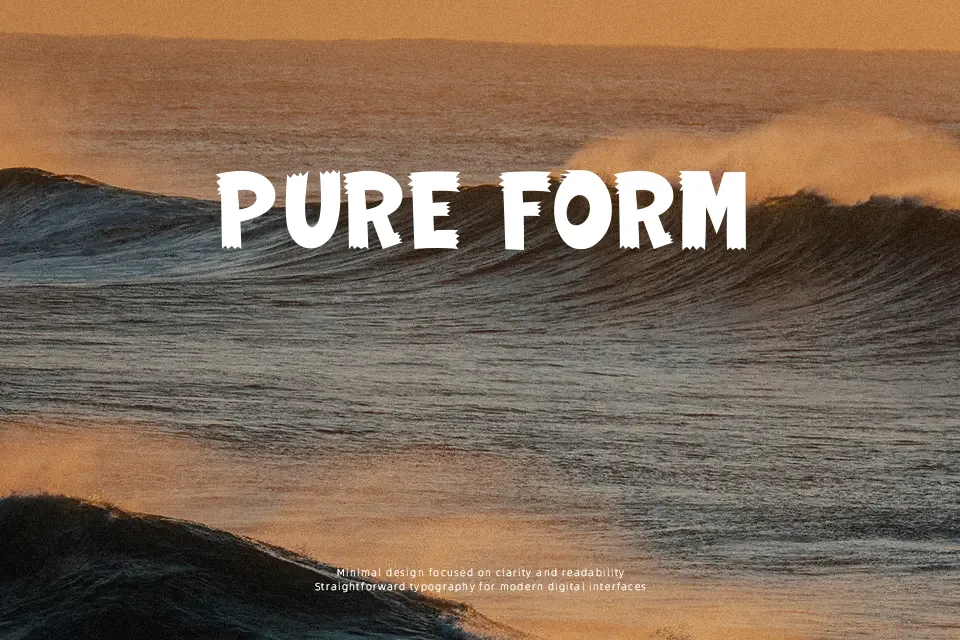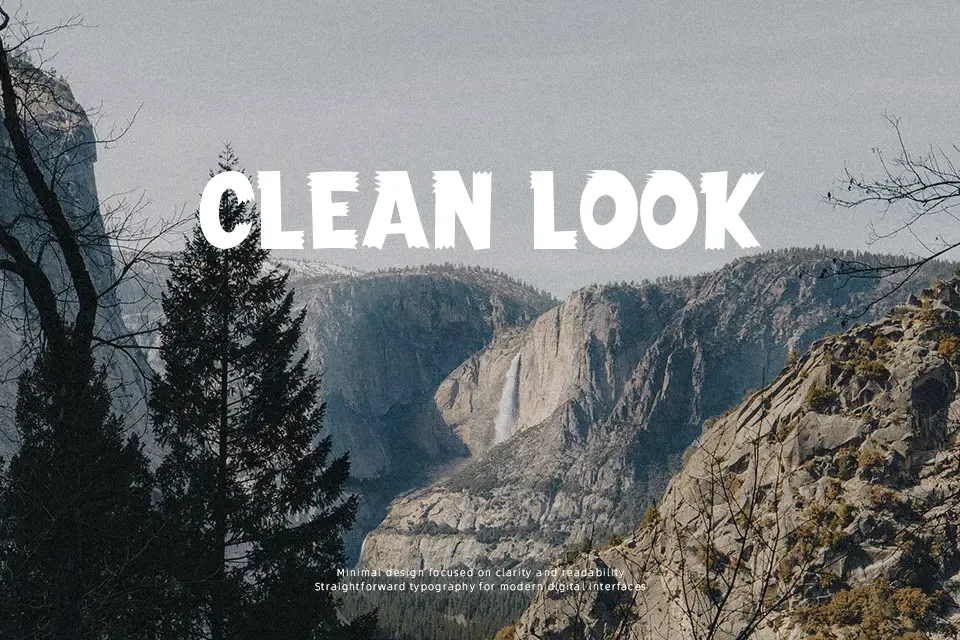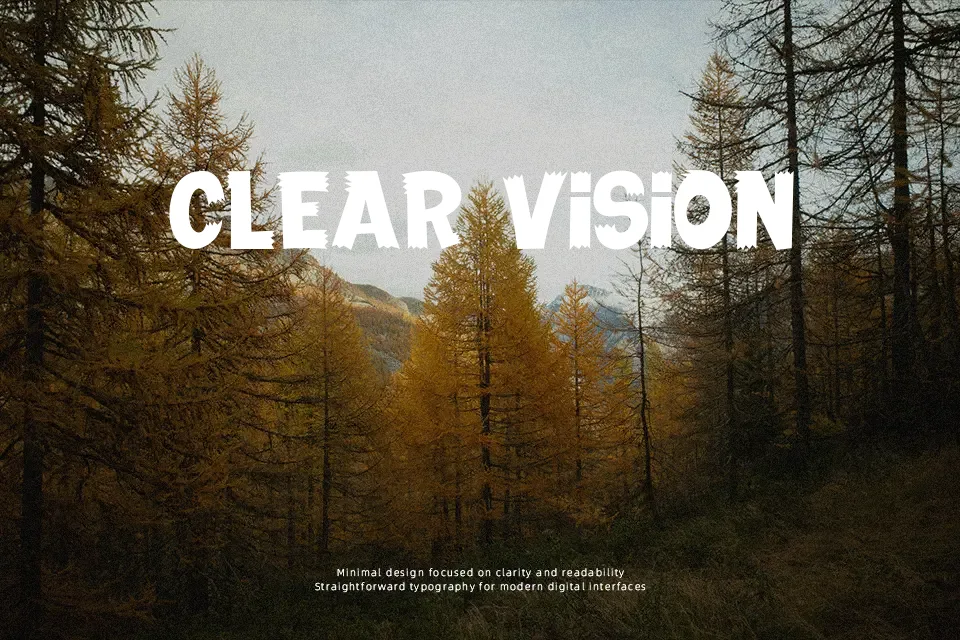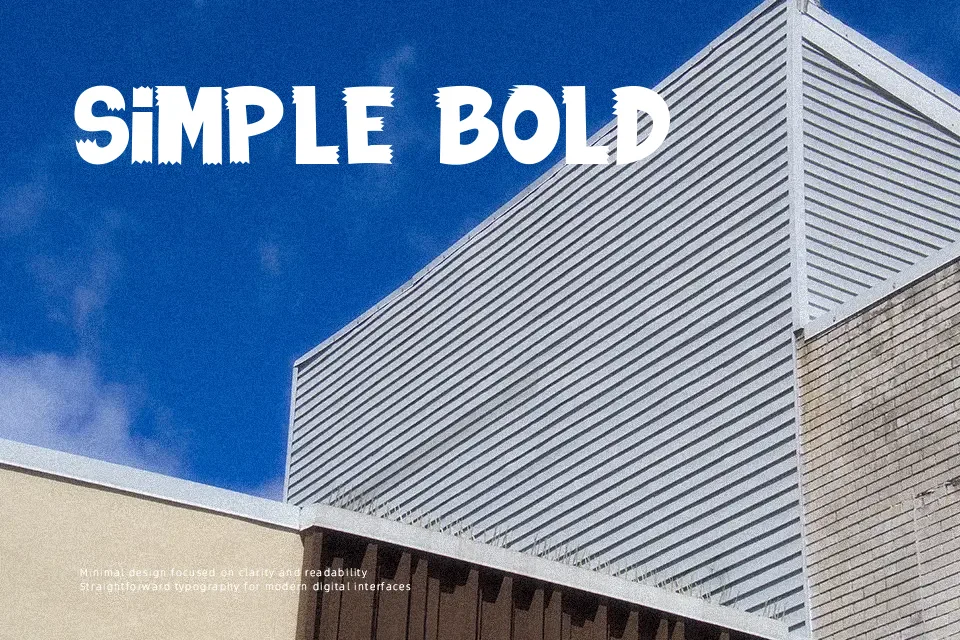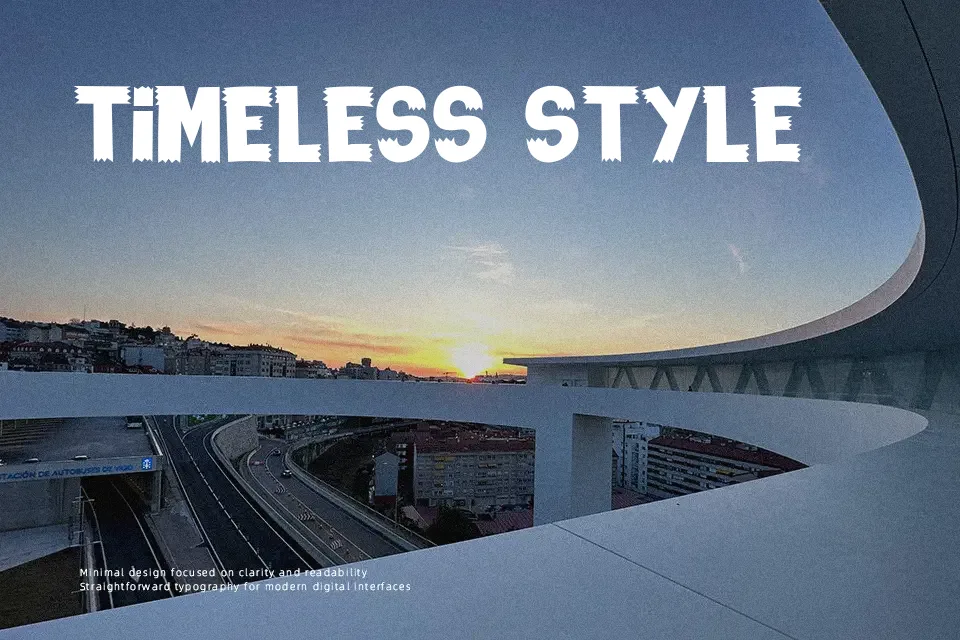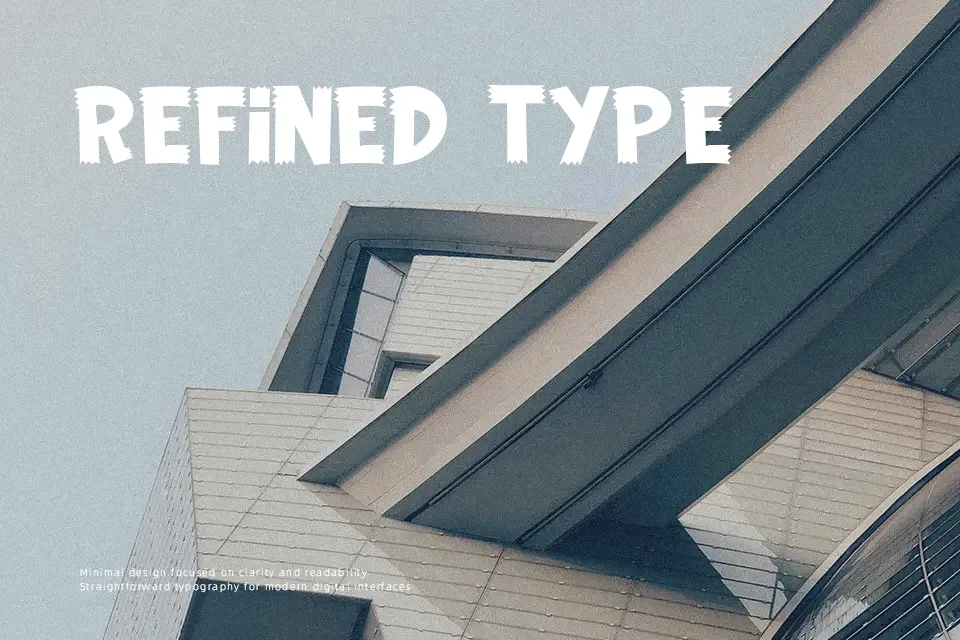
The Creepy Hunter Font
The Creepy Hunter Font introduces an animated display structure defined by heavy strokes, expressive asymmetry, and irregular silhouettes that evoke an eerie yet whimsical tone. Varied stroke contrast and compact letter spacing generate a lively visual cadence, ensuring that short phrases retain strong visual prominence across large compositions. Distinct ascenders and quirky character joins bring dynamic character to thematic graphic layouts, though small captions may lose clarity. Because the heavily stylized outlines prioritize personality over uniform text flow, the typeface functions poorly in lengthy paragraphs where simplified letterforms are essential.
Best For: Halloween event flyers, seasonal party invitations, haunted attraction posters, horror video game titles
Not Ideal For: continuous reading passages, small mobile interface labels, legal disclaimers, spreadsheet data
Perfect for gaming, halloween, and headline, with a bold and cartoon style.